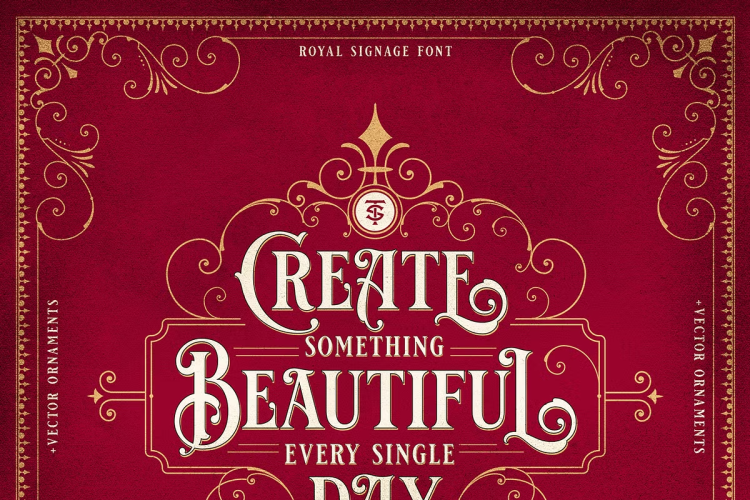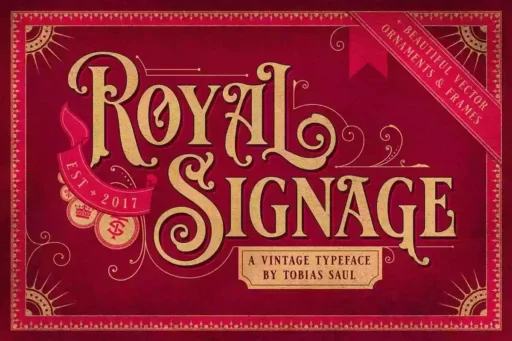
Royal Signage Font
Royal Signage is a vintage type font by Heritage Type Co that looks at the appeal of retro decal designs and stencil signage. This font has a unique Upper case letters and has 38 overlay characters to help you enhance the aesthetics of your artworks. It is well suited for logos, packaging, slogans, tag lines and headlines to give a kind of classic and elegant impression.
Furthermore, the product also contains more than 40 vector ornaments and frames which will definitely help to diversify your designs and add some finishing touches to your works.
Royal Signage Font is a Display Fonts font that brings a professional and versatile look to your projects. Royal Signage is a vintage type font by Heritage Type Co that looks at the appeal of retro decal designs and stencil signage.